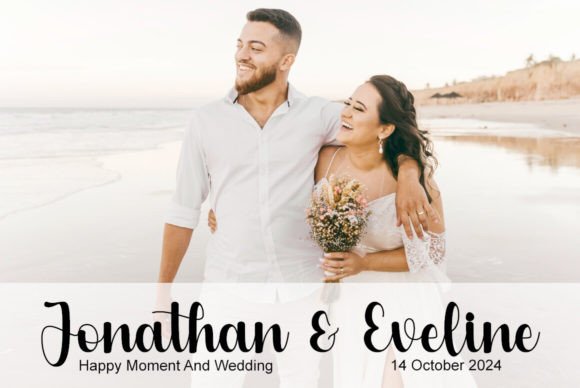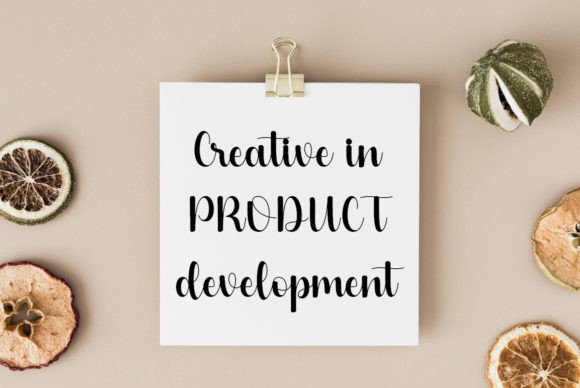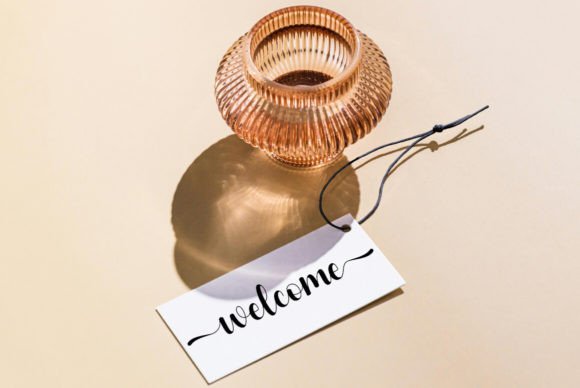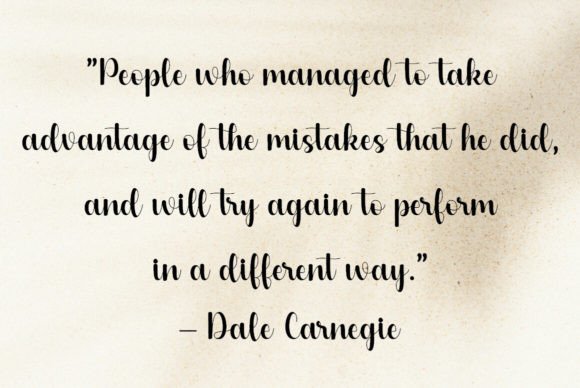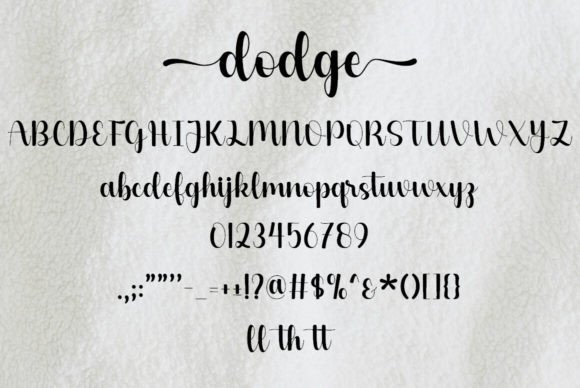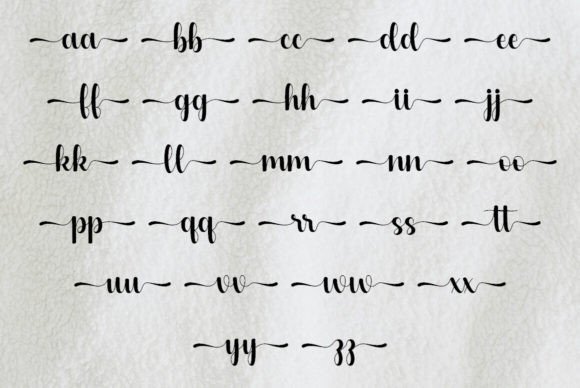
Dodge Font: Elevate Your Designs with Elegance and Sophistication
Are you looking for a font that can add a touch of elegance and sophistication to your designs? Look no further than the Dodge Font. This stylish and incredibly elegant handwritten font is perfect for a variety of design projects, from wedding invitations and thank you cards to logos and business cards.
What Makes Dodge Font So Special?
Dodge Font is a beautifully crafted handwritten font that exudes elegance and refinement. Its stylish and fluid strokes make it perfect for designs that require a personal and human touch. Whether you’re a designer, crafter, or DIY enthusiast, this font is sure to impress.
Dodge Font is incredibly versatile and can be used for a wide range of design projects, including:
- Wedding invitations and wedding stationery
- Thank you cards and greeting cards
- Quotes and inspirational posters
Its elegant and refined appearance makes it perfect for any design project that requires a touch of sophistication and style.
Why Choose Dodge Font?
There are many reasons why Dodge Font is a great choice for designers and crafters. Here are just a few:
- Elegant and refined appearance
- Incredibly versatile and can be used for a wide range of design projects
- Perfect for designs that require a personal and human touch
Tips for Using Dodge Font
Here are a few tips for using Dodge Font in your designs:
- Use it for headlines and titles to add a touch of elegance and sophistication
- Pair it with other fonts to create a unique and interesting contrast
- Use it to create custom graphics and illustrations
Dodge Font is a stylish and incredibly elegant handwritten font that’s perfect for designers and crafters. Its elegant and refined appearance makes it perfect for a wide range of design projects, from wedding invitations and thank you cards to logos and business cards. With its PUA encoding, you can access all of the glyphs and alternates with ease, giving you complete creative control over your designs.